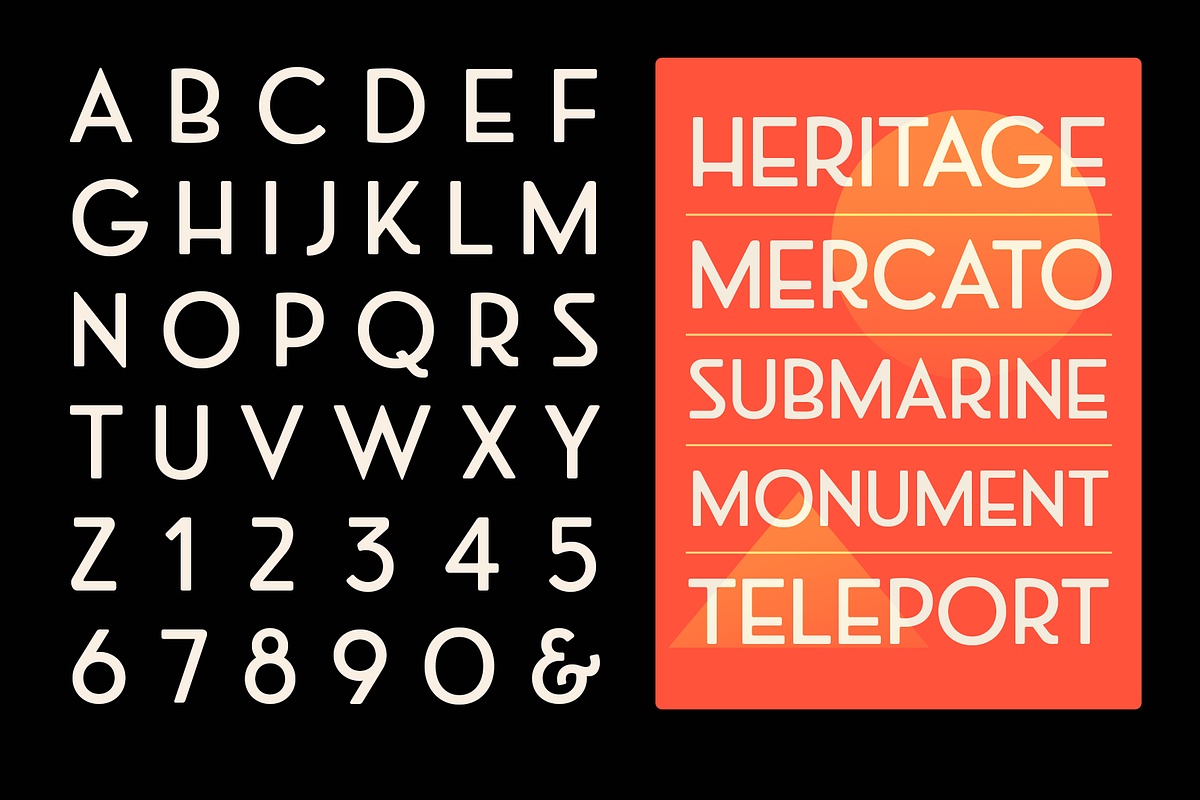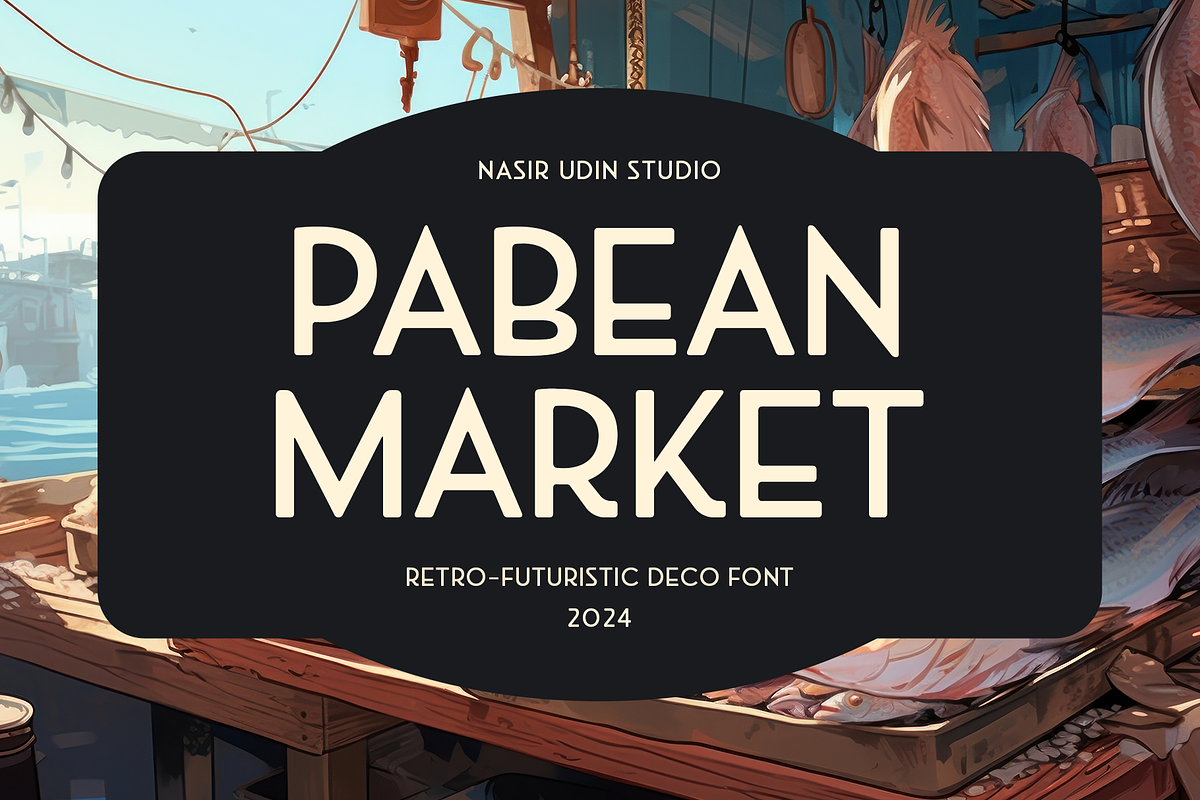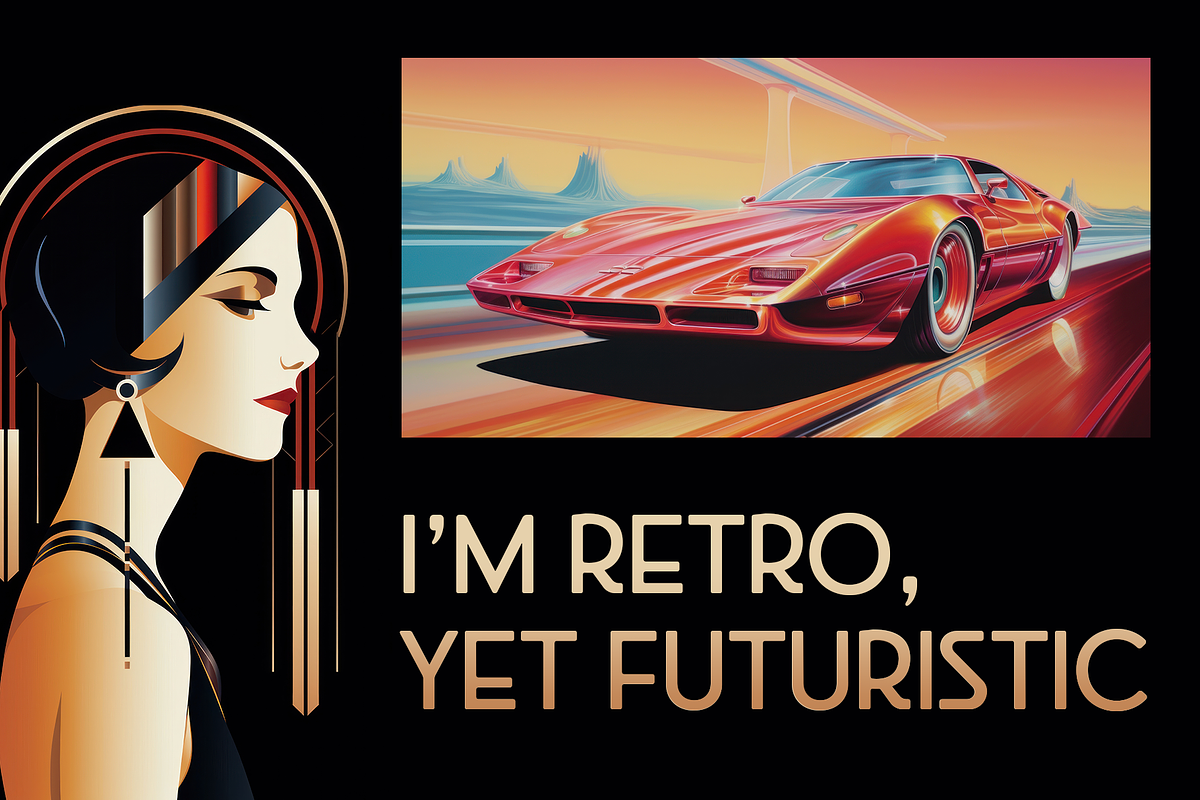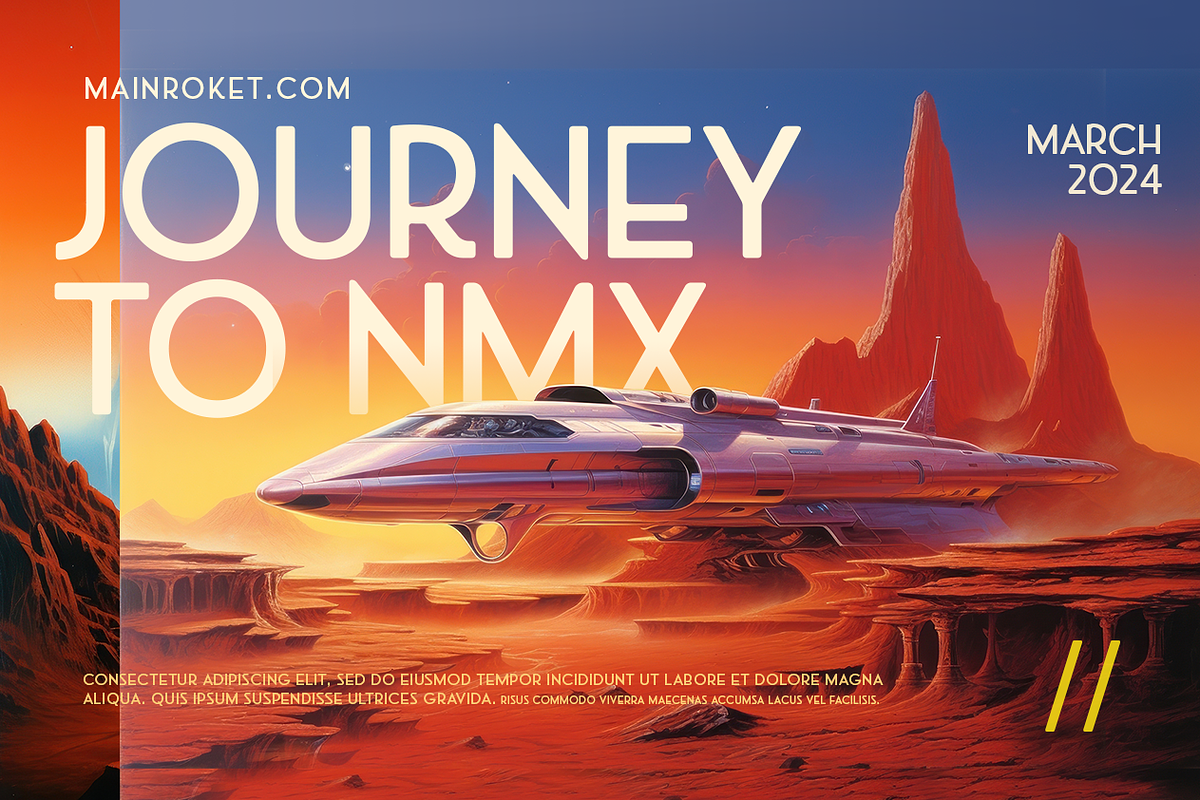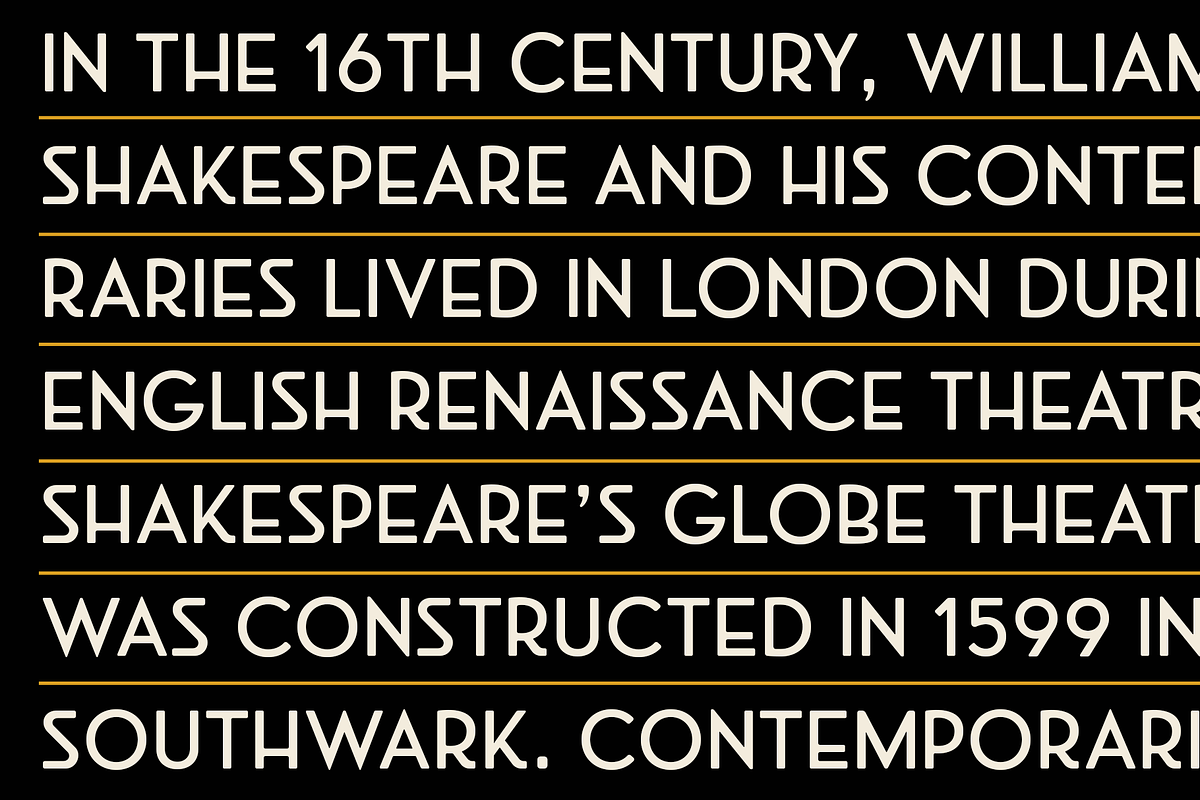
Pabean Market
Pabean Market font is an interpretation of the incription on the oldest market in Surabaya, Indonesia, which was established on 1849. The unique character inspired me to make a complete set of typeface. It’s a retro typeface but has a futuristic aura yet a festive vibes.
This font comes in single style and has several Discretional Ligatures.